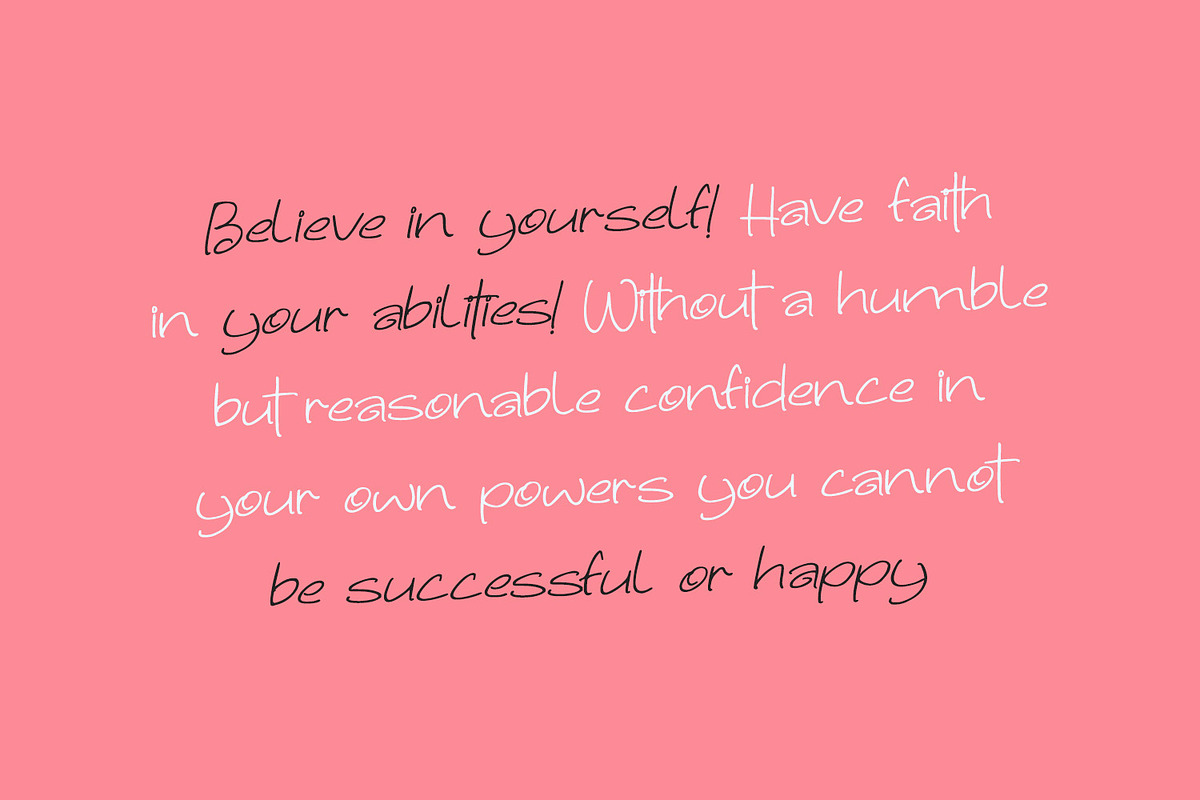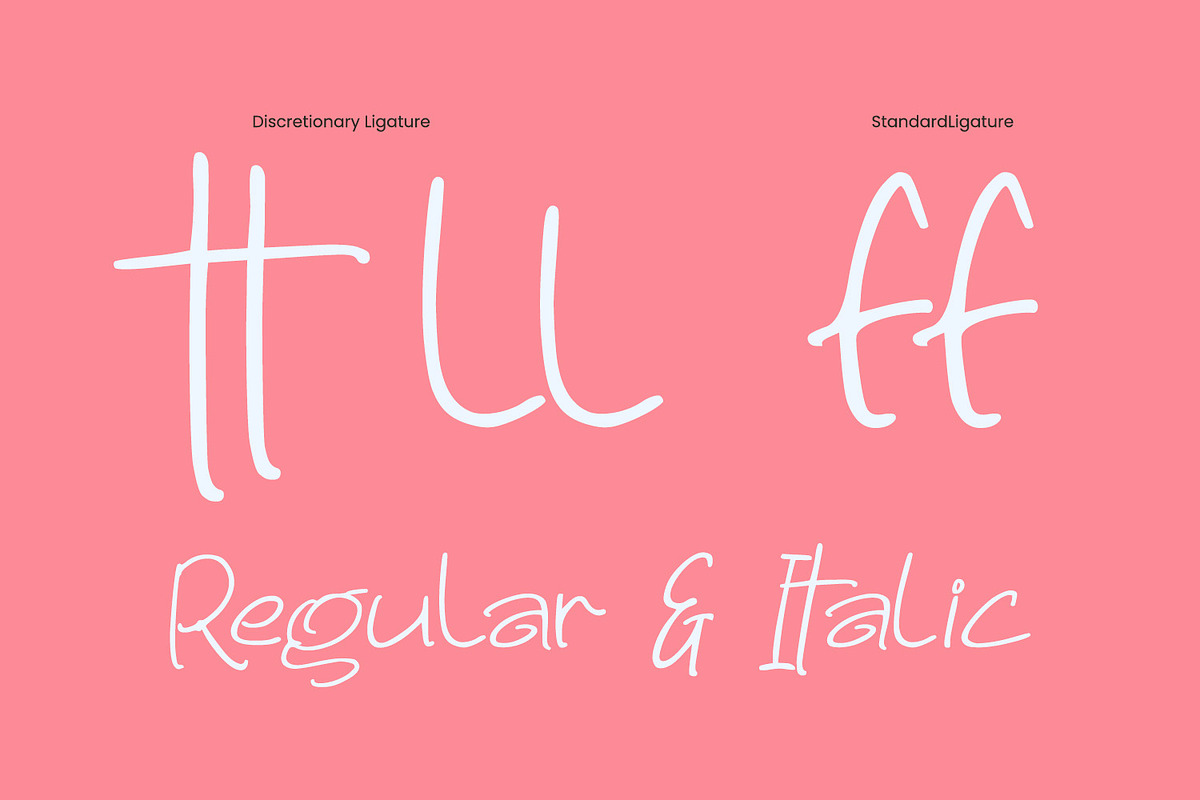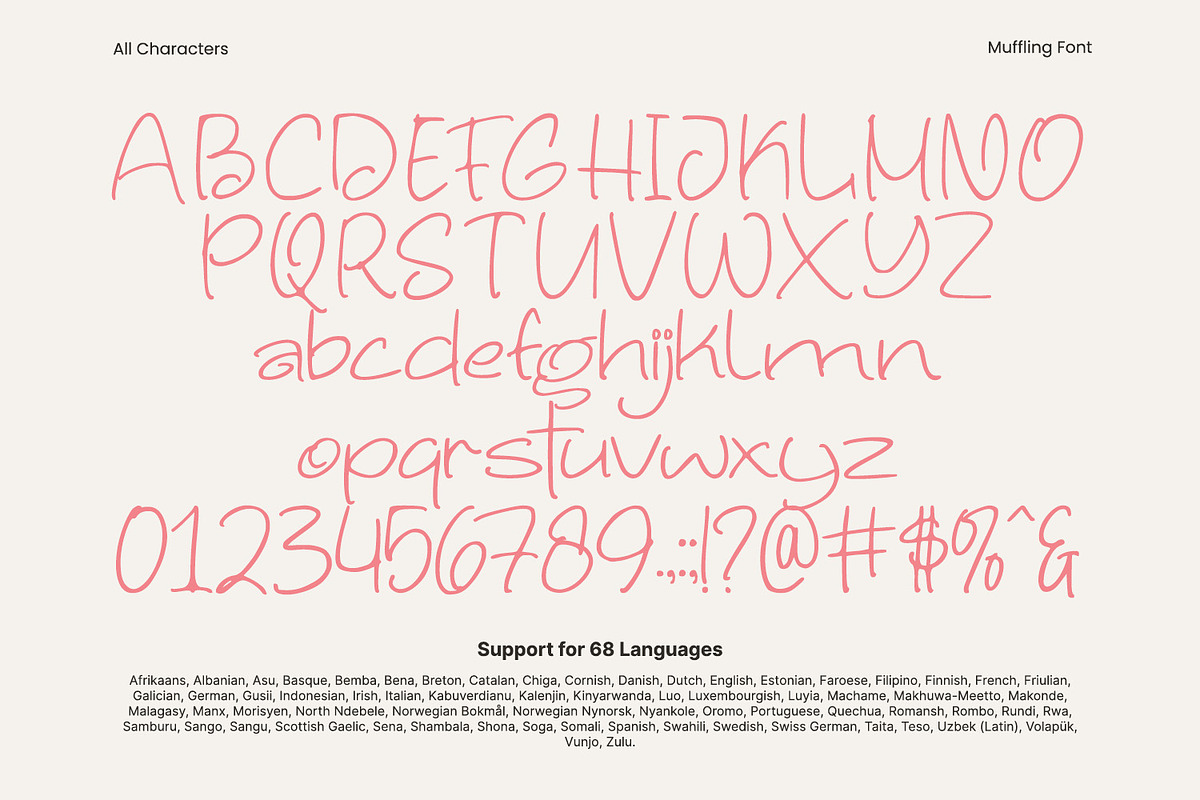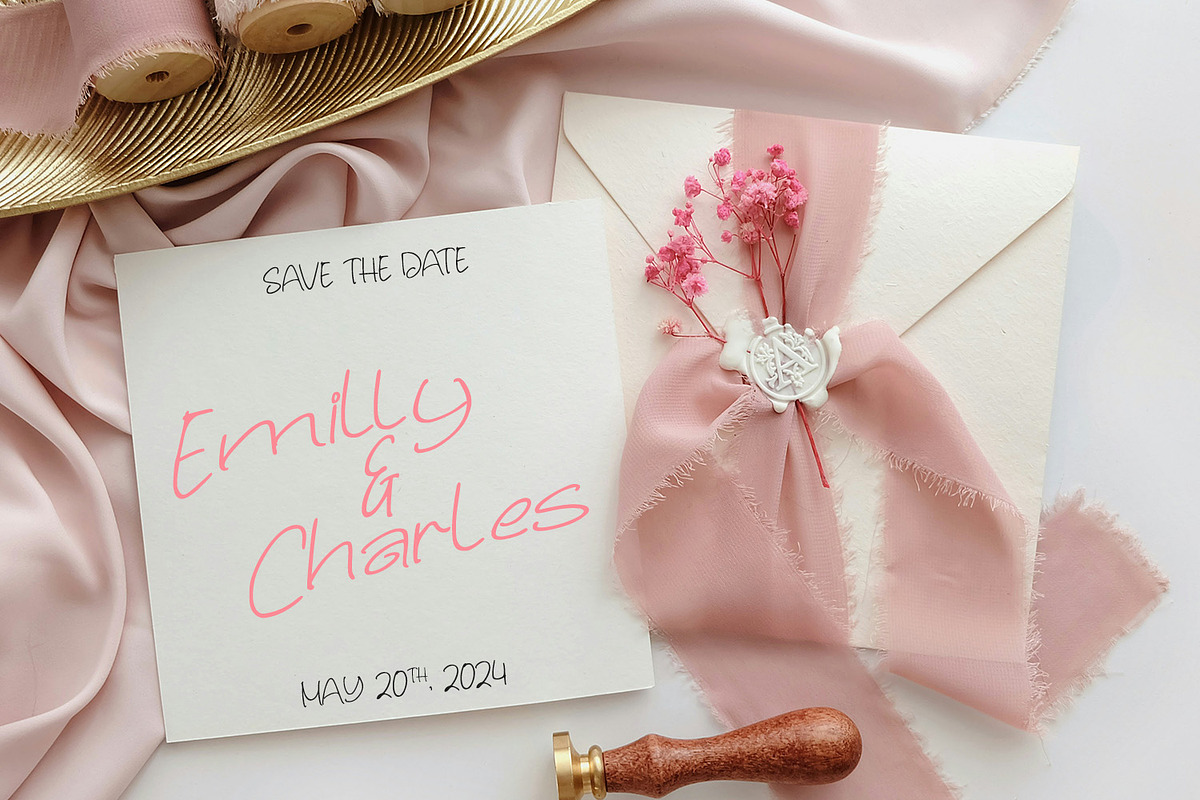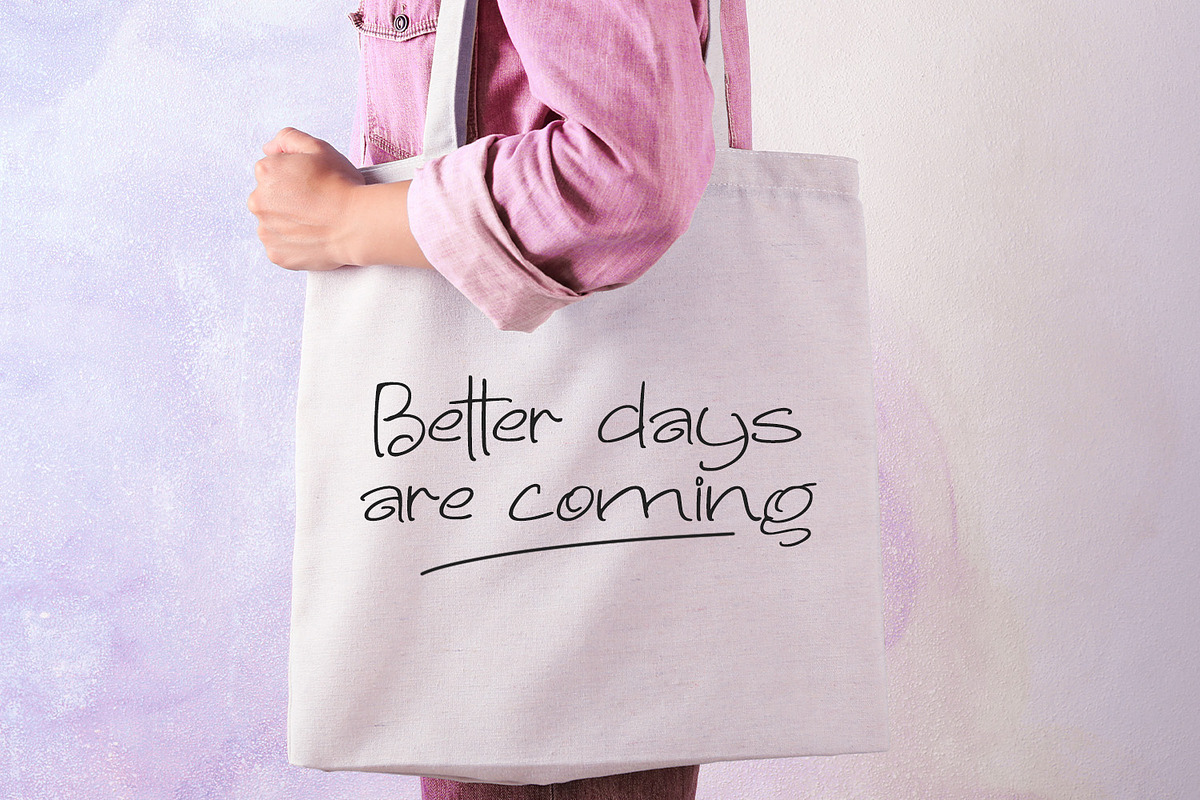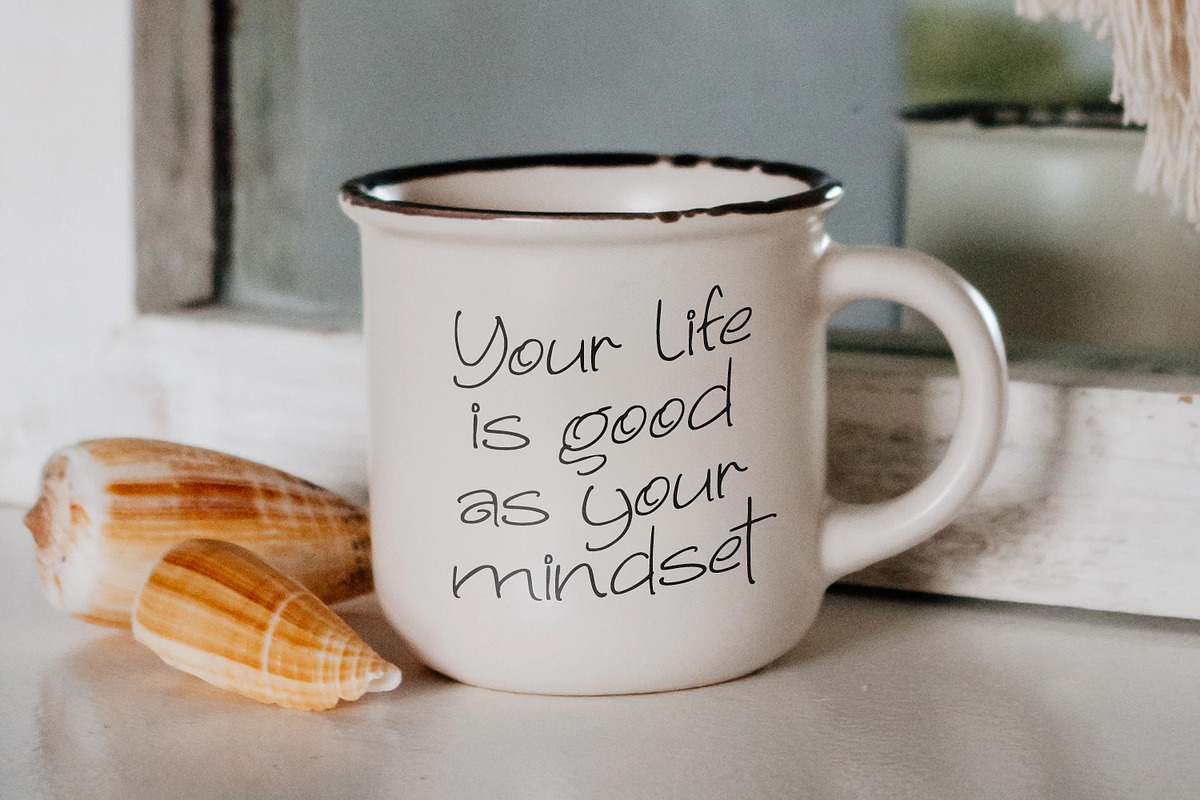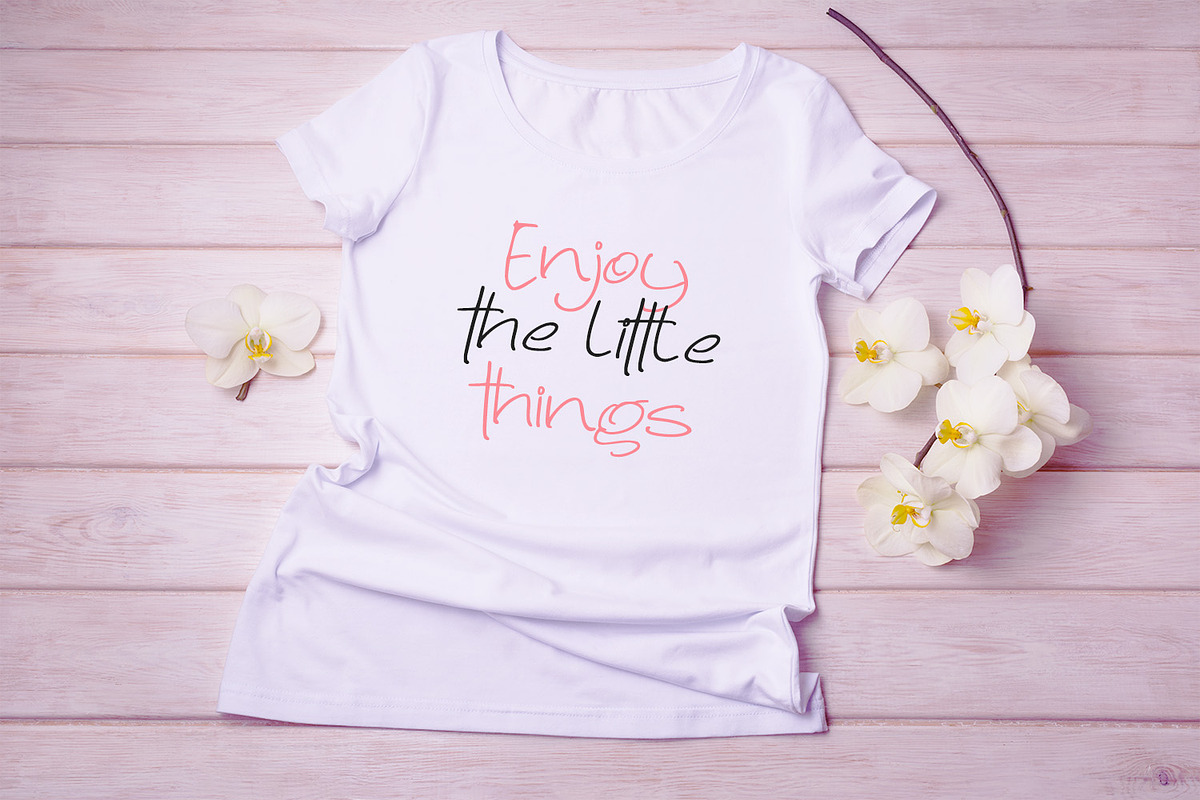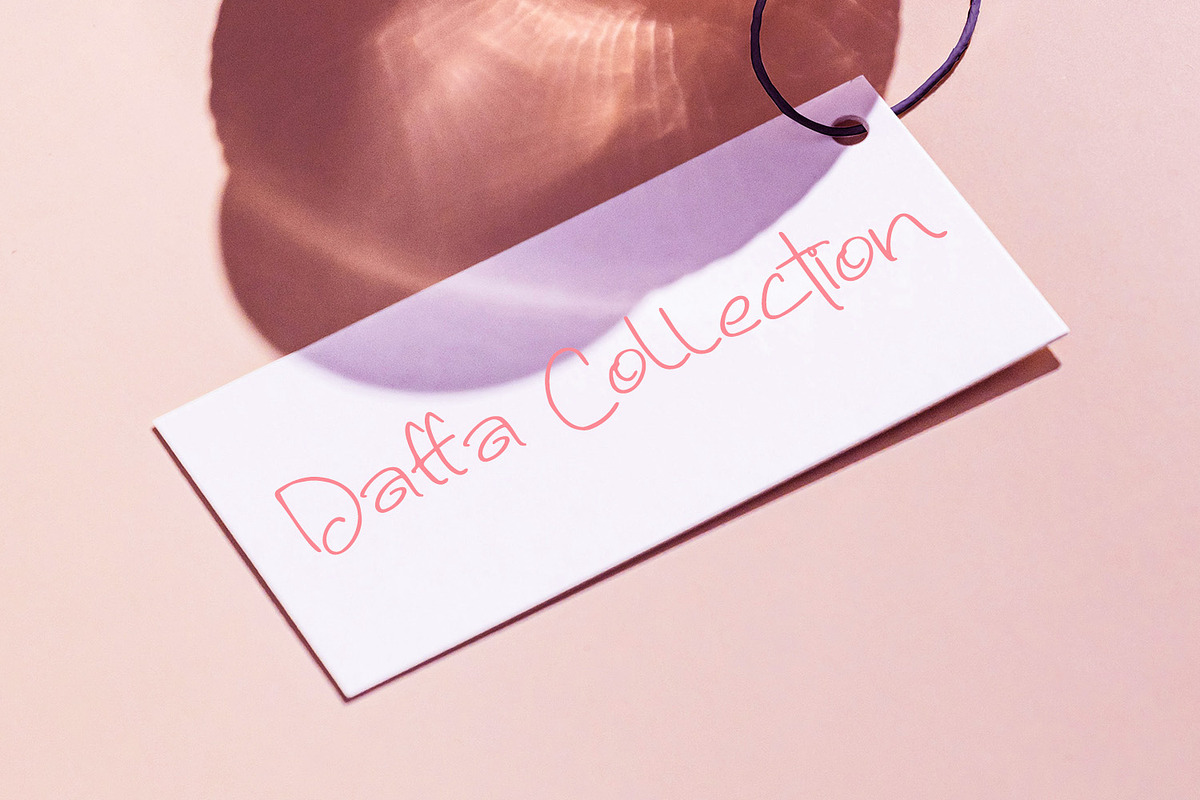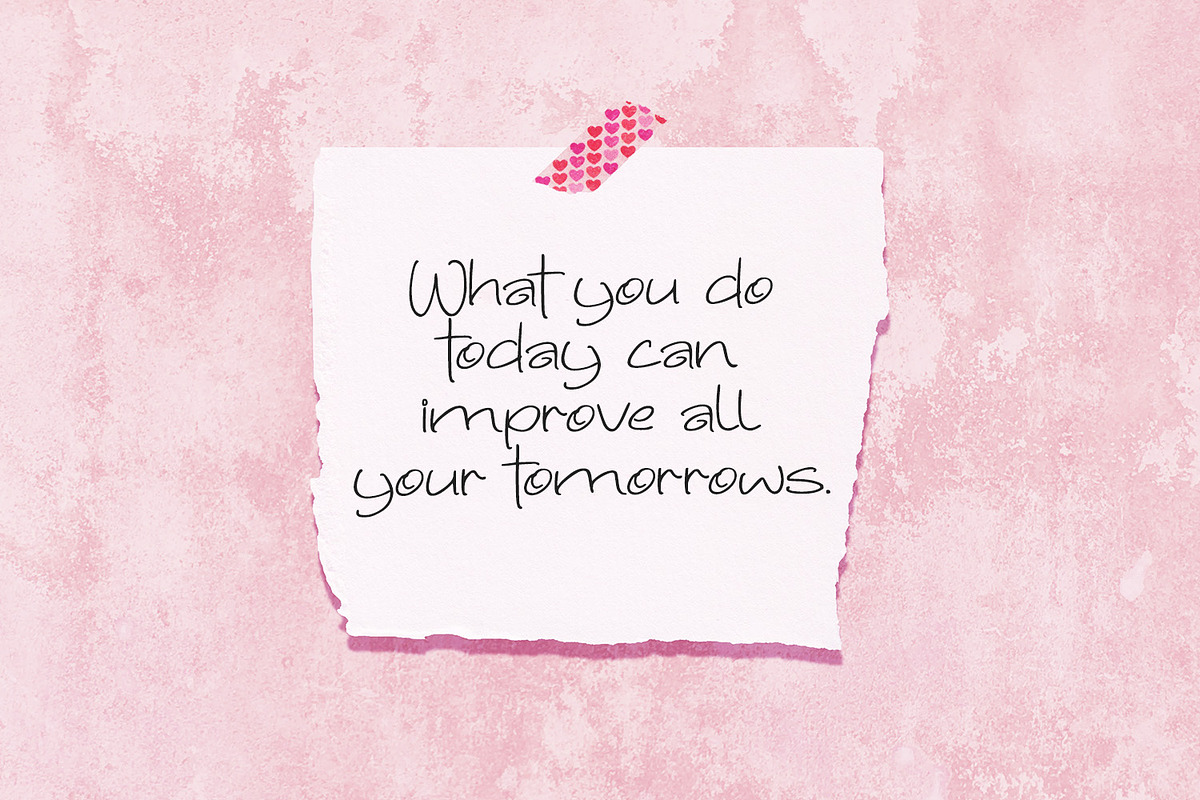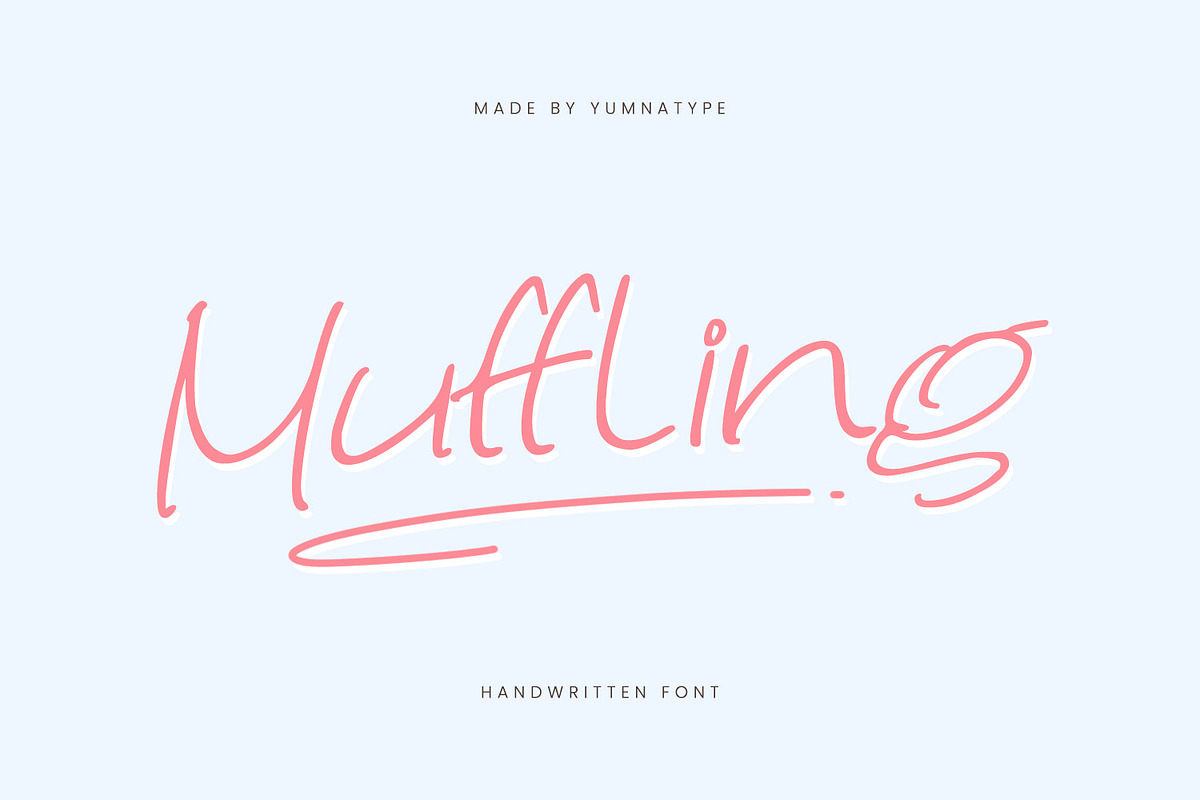
Muffling
Muffling is a delightful font that brings a touch of playfulness to the handwritten style. Crafted with a light weight, this font exudes a sense of whimsy and charm, making it perfect for projects that require a friendly and approachable feel.
The handwritten nature of Muffling gives it a personal and authentic look, as if each letter was carefully penned by hand. Despite its playful demeanor, Muffling maintains excellent readability and versatility. The light weight of the font ensures that it remains airy and unobtrusive, allowing it to be used effectively in both large and small text applications. In addition, enjoy the features here.
Muffling fits in headlines, logos, posters, flyers, branding materials, print media, editorial layouts, and many more designs. Find out more ways to use this font by taking a look at the font preview.